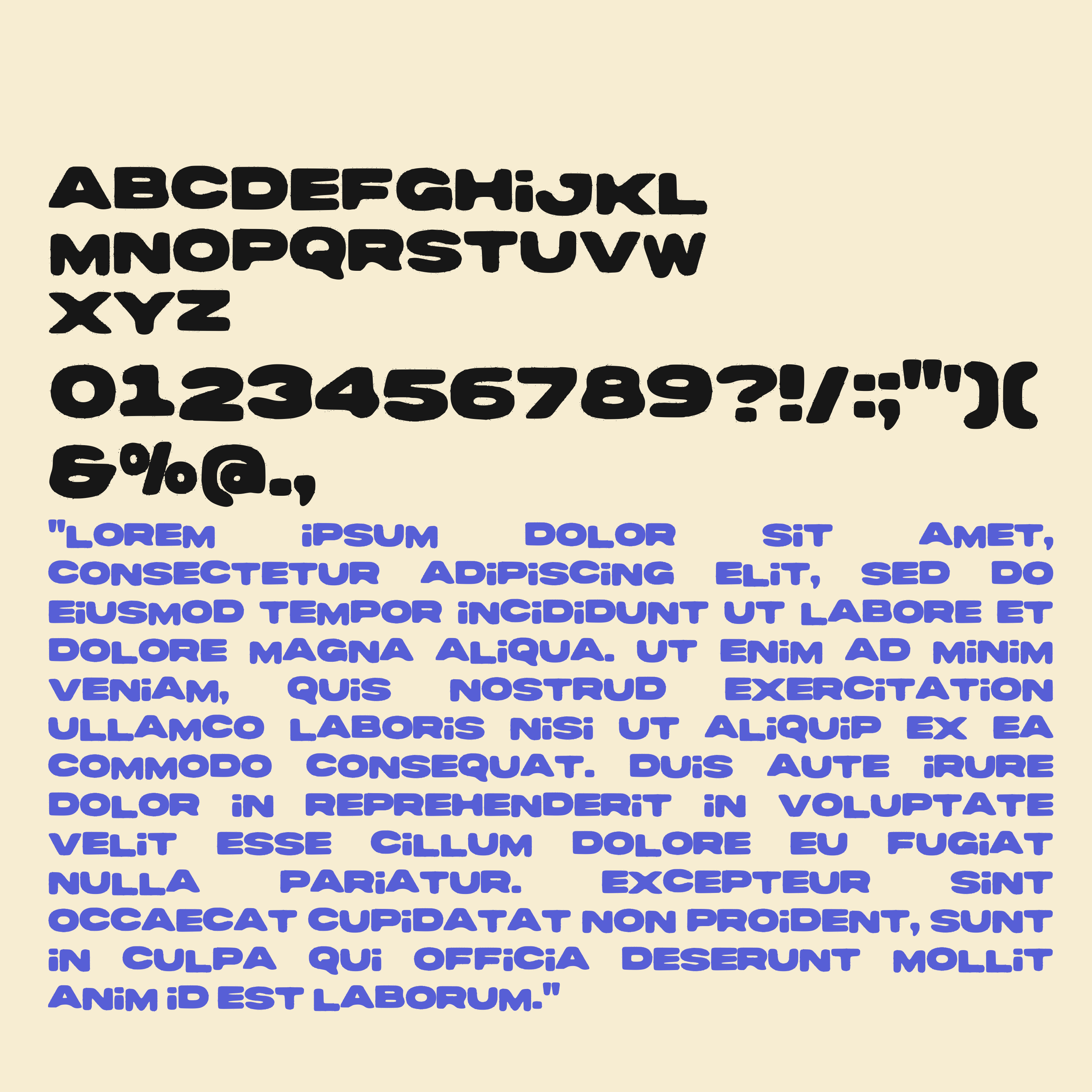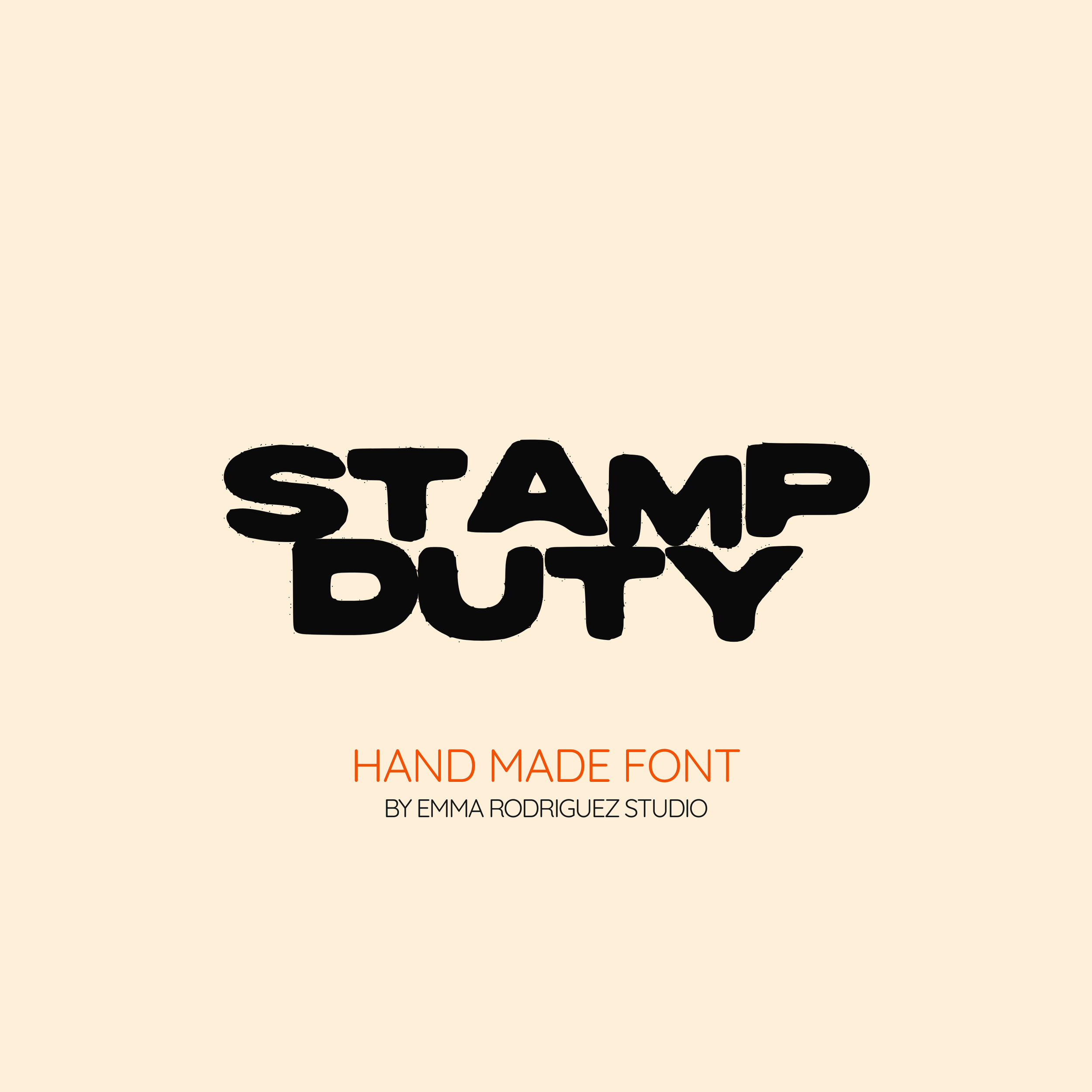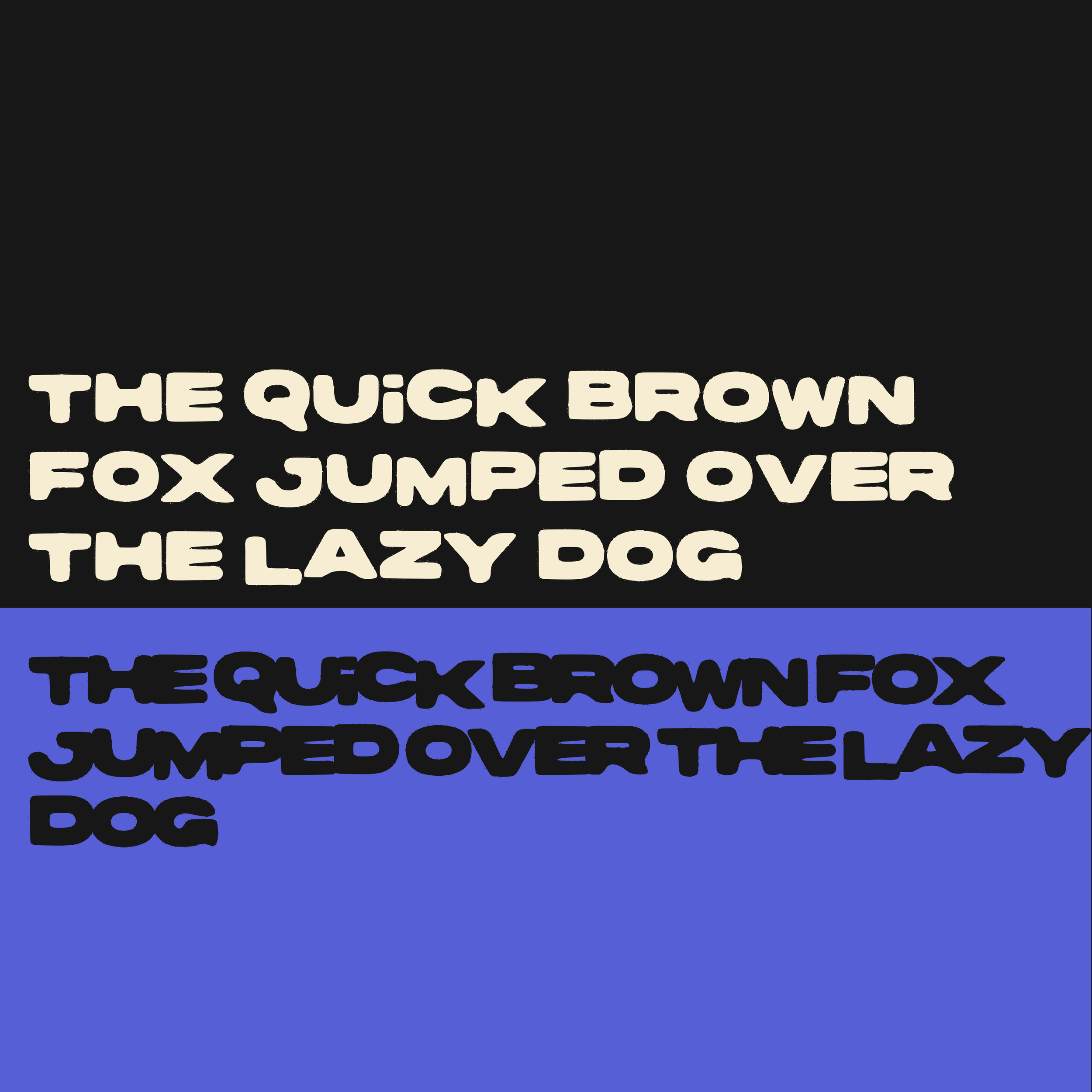
Stamp Duty Font- Wide Bold Inky Blotchy Type
Meet Stamp Duty, a bold, chunky display font that looks like it has been stamped straight onto the page. Thick shapes, slightly rough edges, and compact letterforms give it a strong, solid presence that feels confident and grounded.
Each character has a weighty, ink pressed feel, with subtle imperfections that make the typeface feel handmade rather than perfectly digital. The result is a heavy, impactful font that immediately grabs attention while keeping a playful, slightly gritty personality.
This is the kind of typeface you use when you want your words to land with impact.
Perfect for posters, bold headlines, branding, packaging, and designs that need a strong visual punch from the very first glance.
• All uppercase letters
• Numbers and basic punctuation
Use it for:
• Bold branding
• Poster headlines
• Album artwork
• Statement packaging
• Stickers
• Social media graphics
• Zines and indie publications
• Fun merchandise
Fonts by Emma Rodriguez Studio are made to have personality. Expect naive shapes, wonky details, playful imperfections and type that doesn’t take itself too seriously. They’re not designed for clean, minimal branding. They’re for bold, quirky, maximalist projects that need something a little stranger, sillier and more expressive.